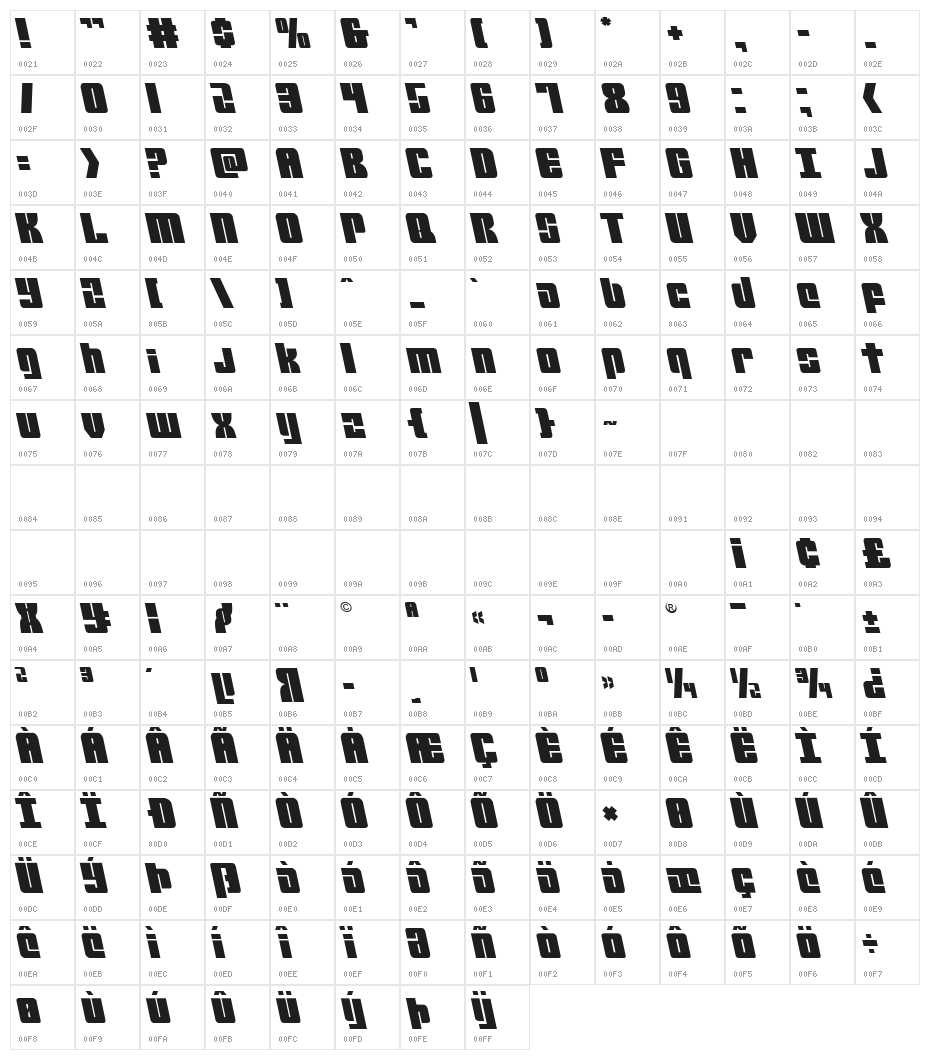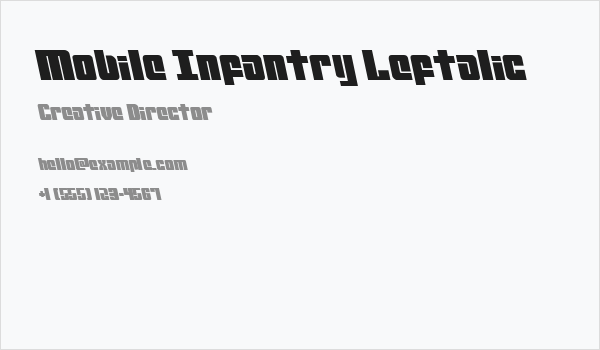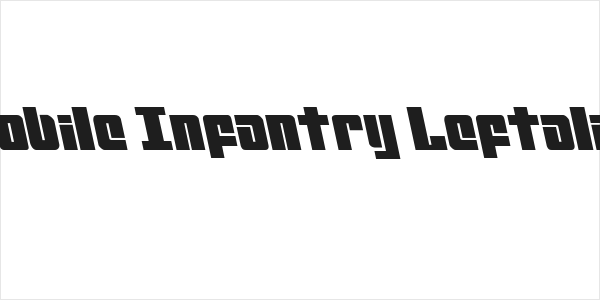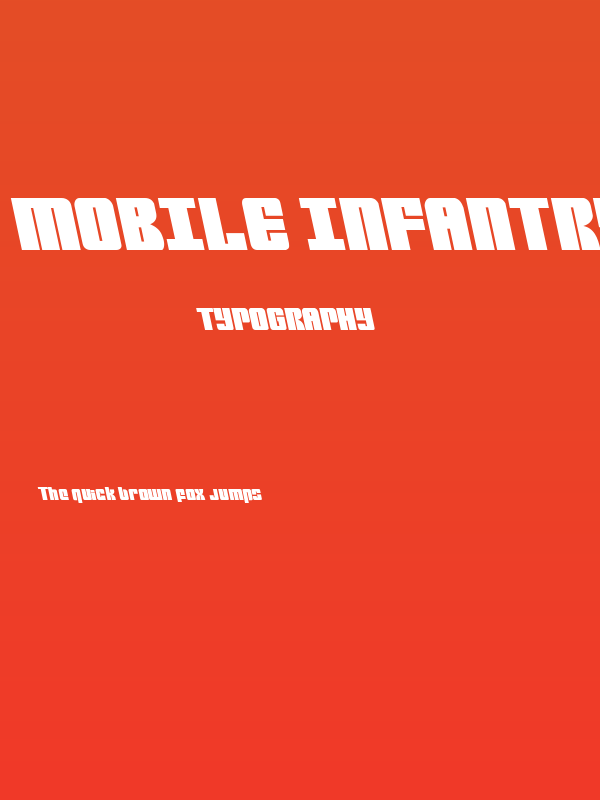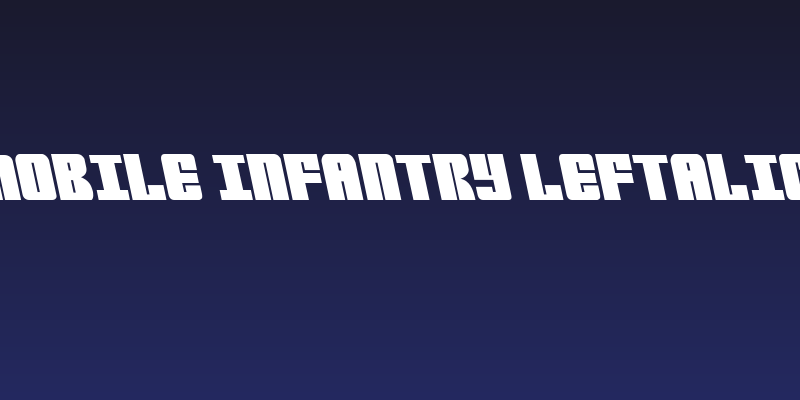
Mobile Infantry Leftalic Font
Mobile Infantry Leftalic Description
This font features a bold and angular design with a distinct futuristic and military-inspired aesthetic. The characters are blocky and geometric, with sharp edges and a strong presence. The uppercase and lowercase letters maintain a consistent style, with the lowercase slightly smaller but equally bold. Numbers and special characters follow the same design principles, ensuring uniformity across all glyphs. The font's style is assertive and impactful, making it suitable for attention-grabbing applications.
| Overall Style | Futuristic, Military |
| Proposed Projects | Ideal for video game titles, movie posters, military-themed designs, and branding that requires a strong, assertive look. |